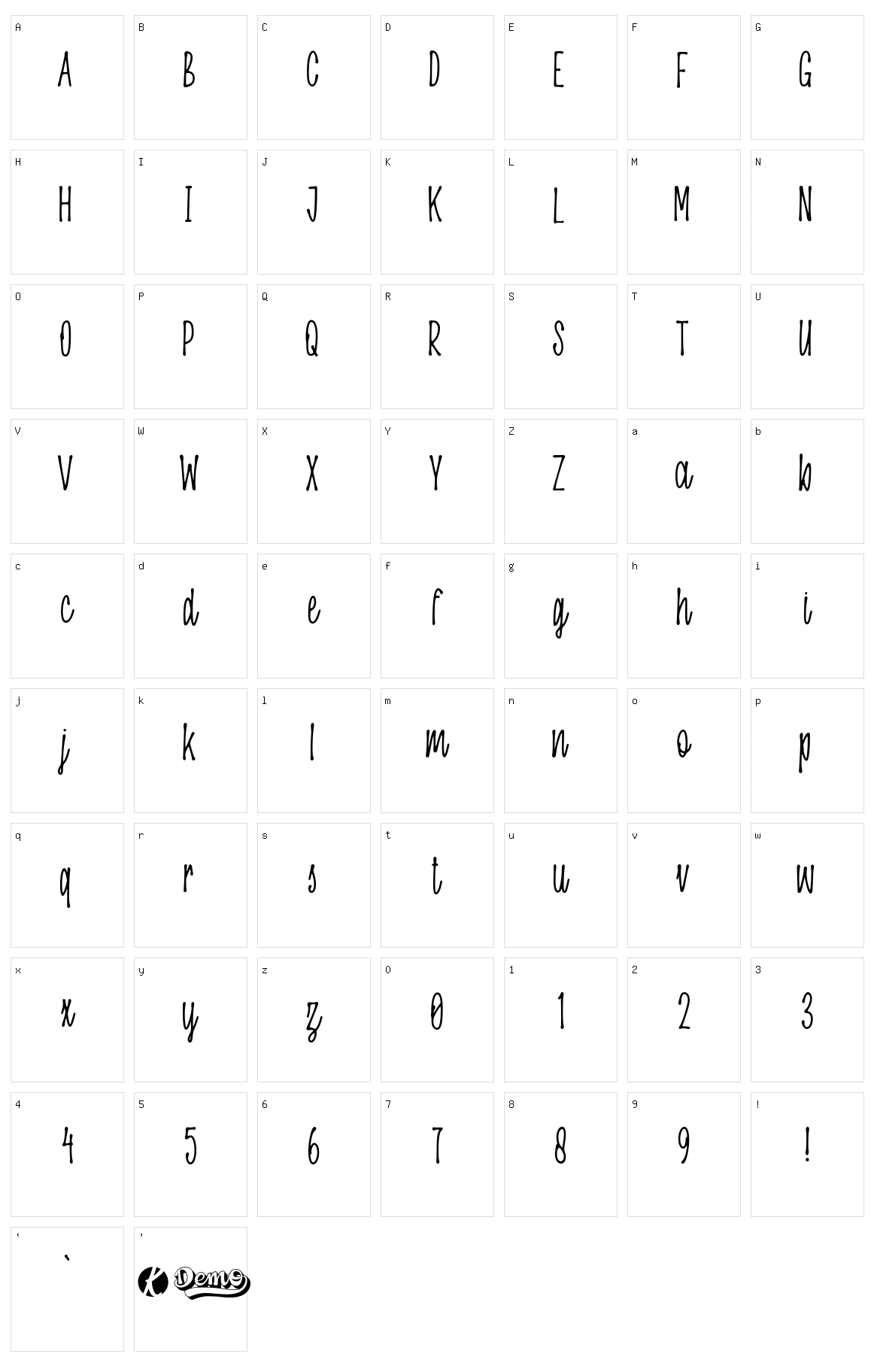
The free font Oranjipen is carefully designed by Katario Studio, showcasing a thoughtful balance of creativity and usability and falls under the Script font style. When you download the ZIP file, it contains only 28.63 KB of font files, making it lightweight and quick to download. Please review the license details below to understand permitted usage and distribution rights. If license information is not available, we recommend using this font for personal projects only or contacting the author directly for commercial usage permissions.